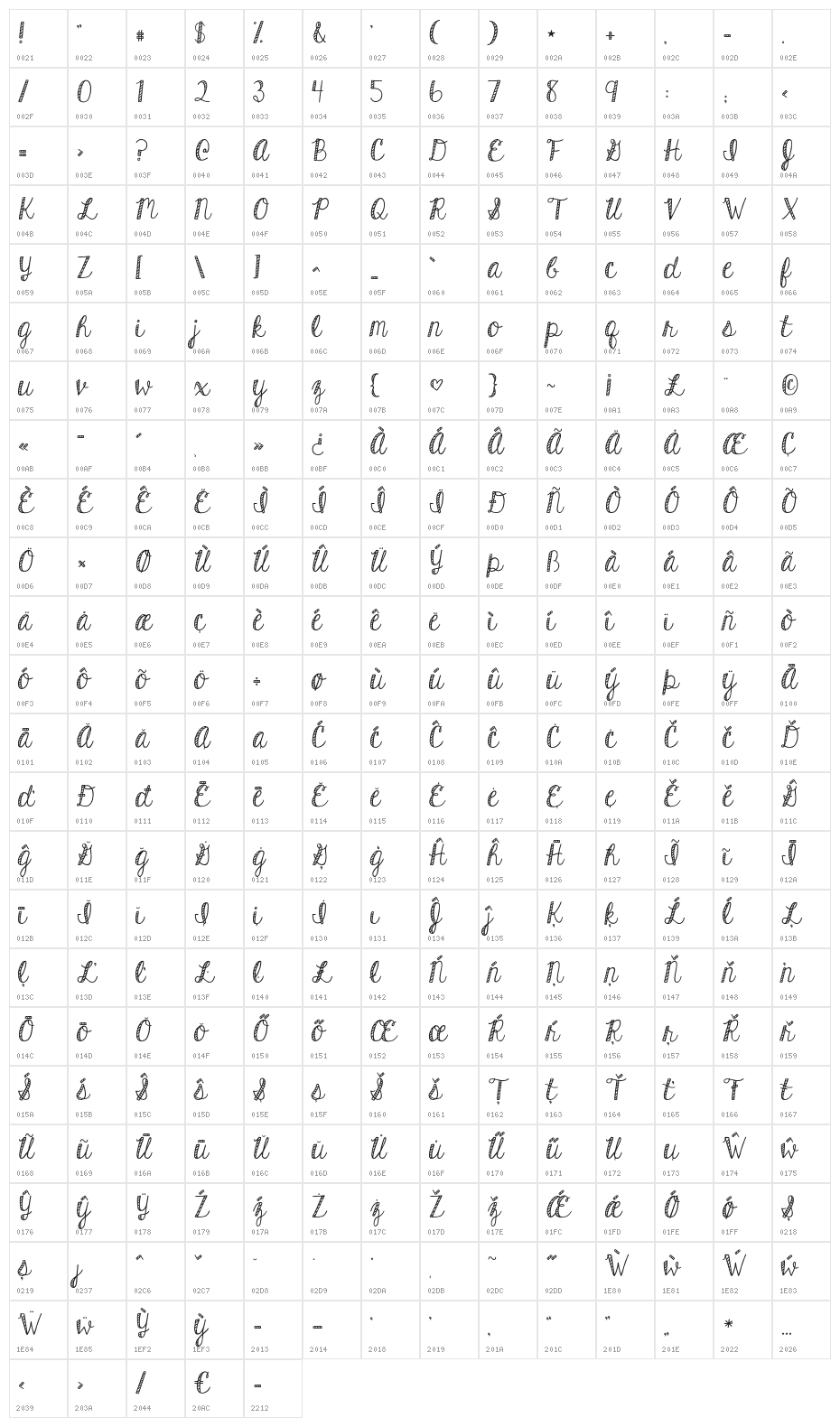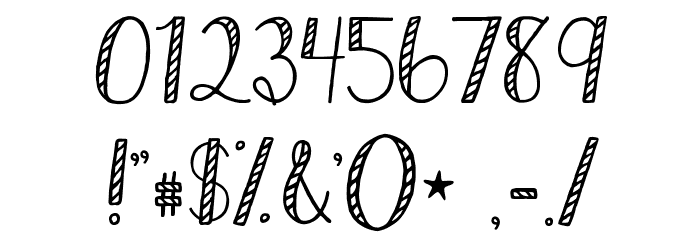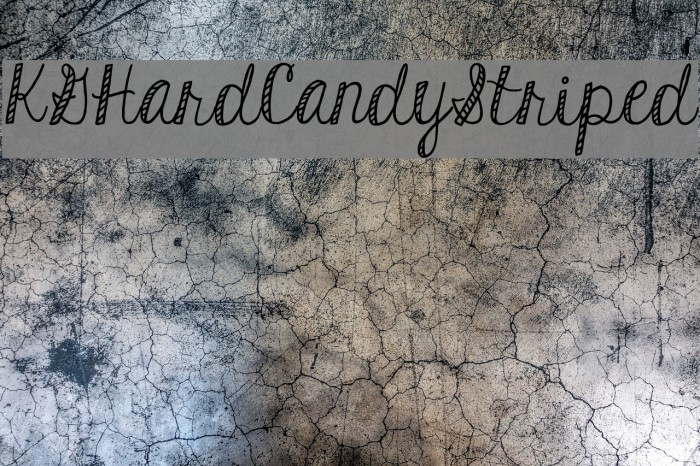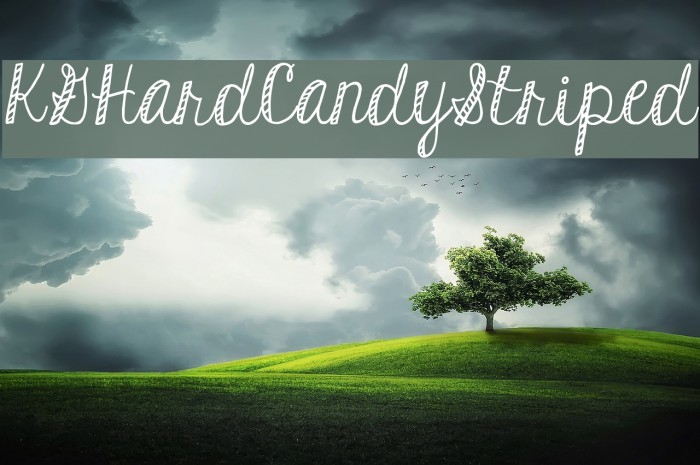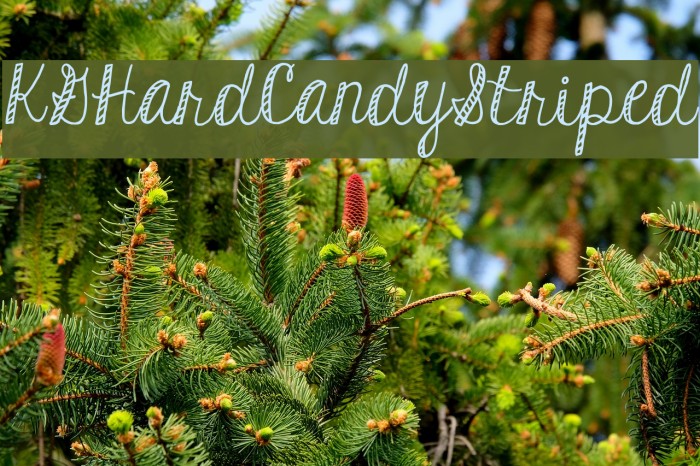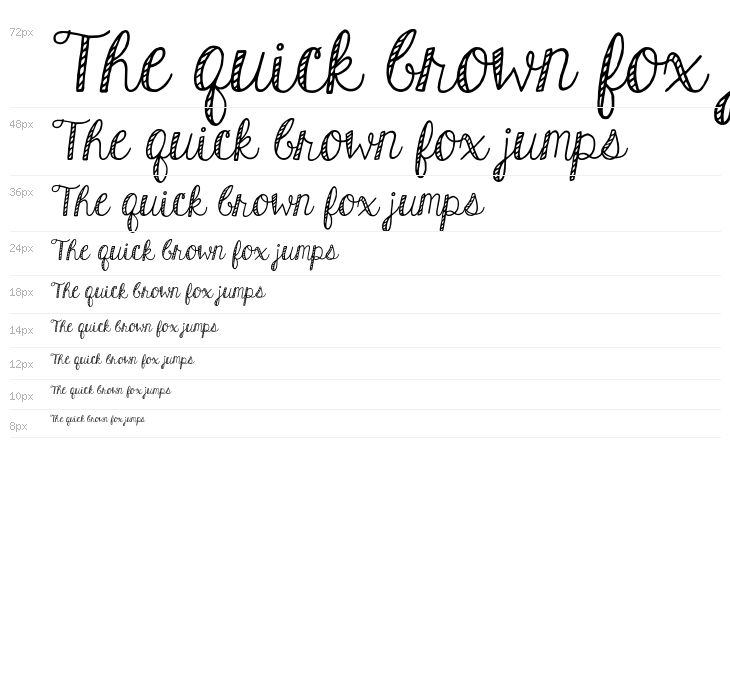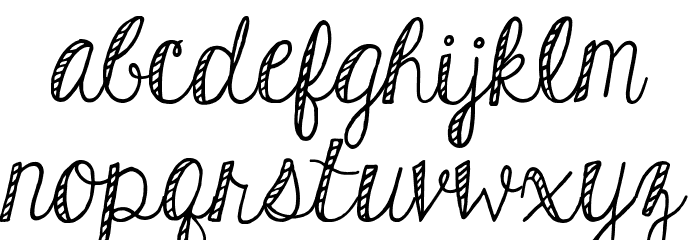
KGHardCandyStriped Font
KGHardCandyStriped Description
This playful and whimsical font features a unique striped pattern within each character, reminiscent of candy canes or festive decorations. The letters are crafted with a handwritten, cursive style that adds a personal and friendly touch. The uppercase letters are bold and eye-catching, while the lowercase letters maintain a consistent flow and elegance. Numbers and special characters are included, each with the same striped detailing, ensuring a cohesive look across all text. This font is perfect for adding a fun and creative flair to any project.
| Overall Style | Whimsical |
| Proposed Projects | Ideal for holiday cards, children's book covers, playful branding, and festive invitations. |